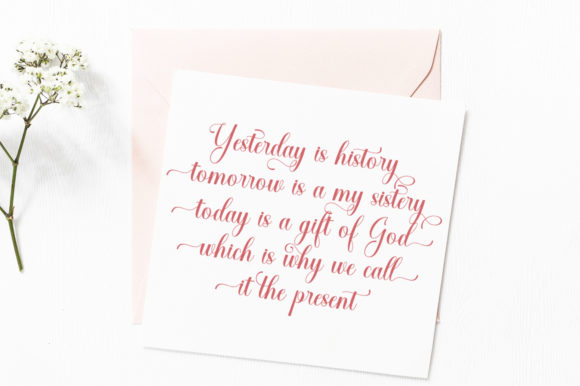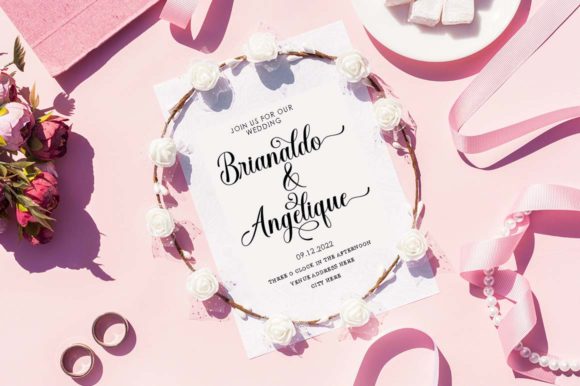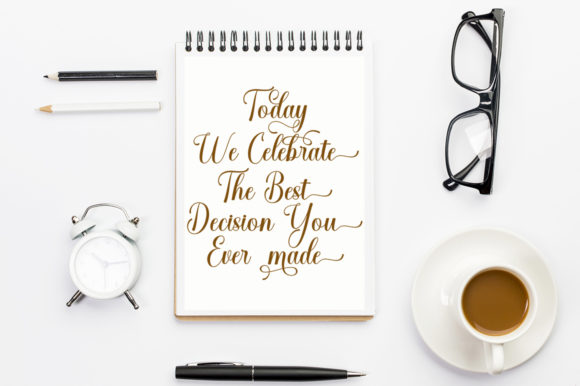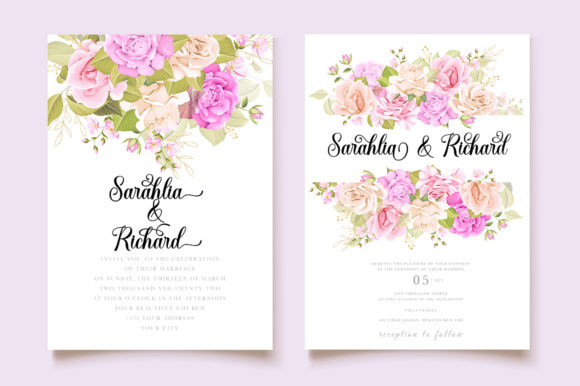
Josephani Font
About Josephani Font
Josephani is a sweet, soft hand-lettered script font. Fall in love with its authentic feel and use it to create gorgeous wedding invitations, beautiful stationary art, eye-catching social media posts, and cute greeting cards.This font is PUA encoded which means you can access all of the amazing glyphs and swashes with ease! It also features a wealth of special features including alternate glyphs and ligatures.